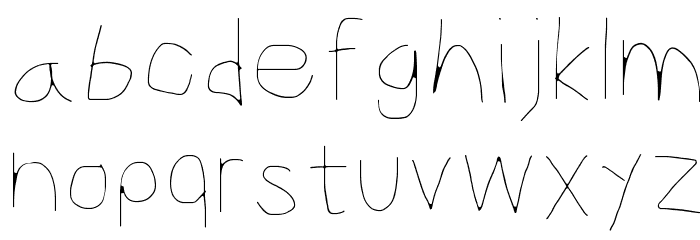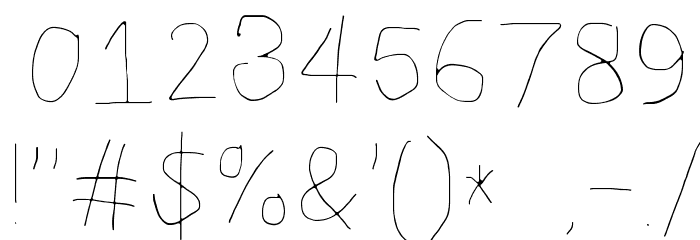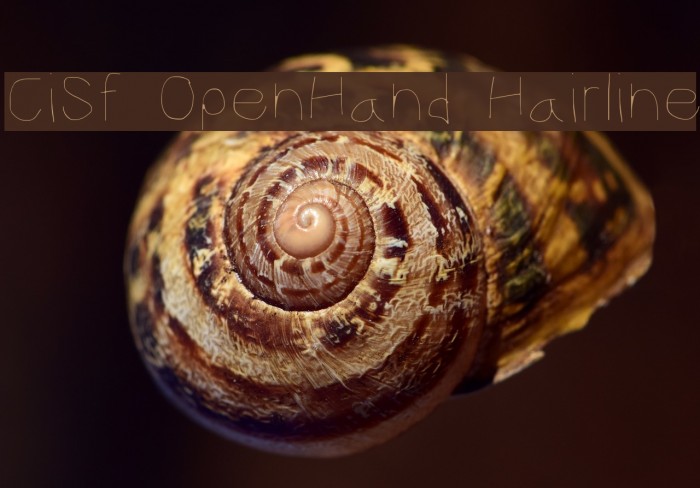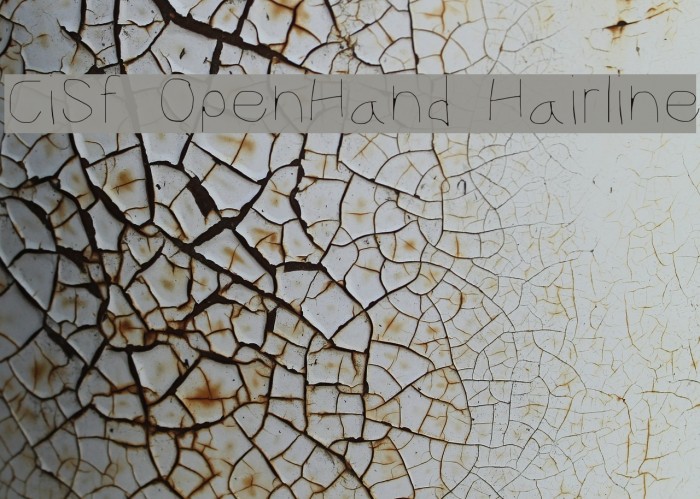
CiSf OpenHand Hairline Font
This font features a delicate, hand-drawn style with thin, consistent strokes that give it a light and airy appearance. The characters are slightly irregular, adding a personal and informal touch. The uppercase letters are tall and narrow, while the lowercase letters maintain a similar width, creating a harmonious balance. The numerals and special characters follow the same thin, elegant line work, ensuring consistency throughout. This font's simplicity and subtle charm make it suitable for projects that require a gentle, approachable aesthetic.
A delicate, hand-drawn font with thin, consistent strokes and a personal touch.
- Proposed Projects: Ideal for personal invitations, greeting cards, children's book illustrations, and casual branding projects.
- Category: Handwritten
- Weight: Light
- Overall Style: Casual
- Use Case: Invitations, Greeting cards, Illustrations